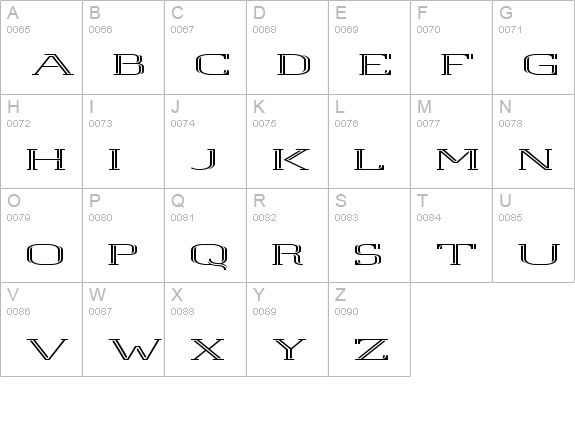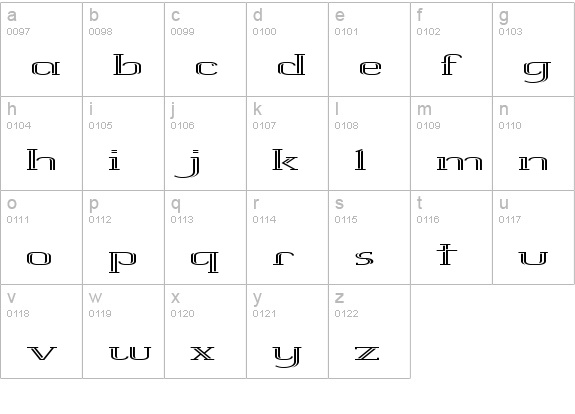
White Line Rolled Font Details
Introducing White Line Rolled, a captivating font that effortlessly combines elegance with a touch of playfulness. This unique typeface is perfect for those seeking a versatile and eye-catching design for their projects. With its clean lines and stylish curves, White Line Rolled exudes a sense of modernity and sophistication. Each letter is meticulously crafted to create a seamless flow, making it a truly captivating choice for logos, branding, packaging, and more. But what sets White Line Rolled apart is its versatility. Whether you're looking to add a touch of elegance to a wedding invitation or create a bold statement with a headline, this font has got you covered. Its ability to adapt to various design concepts makes it a go-to choice for both professional designers and casual creatives. And the best part? White Line Rolled is available for free download exclusively at FontsMarket.com. Yes, you read that right – this stunning font can be yours without spending a single penny. Simply head over to FontsMarket.com, and with just a few clicks, you'll have access to this remarkable typeface. So why wait? Download White Line Rolled today and let your creativity soar. With its timeless elegance and endless possibilities, this font is sure to elevate your designs to new heights. Get ready to make a lasting impression with White Line Rolled.